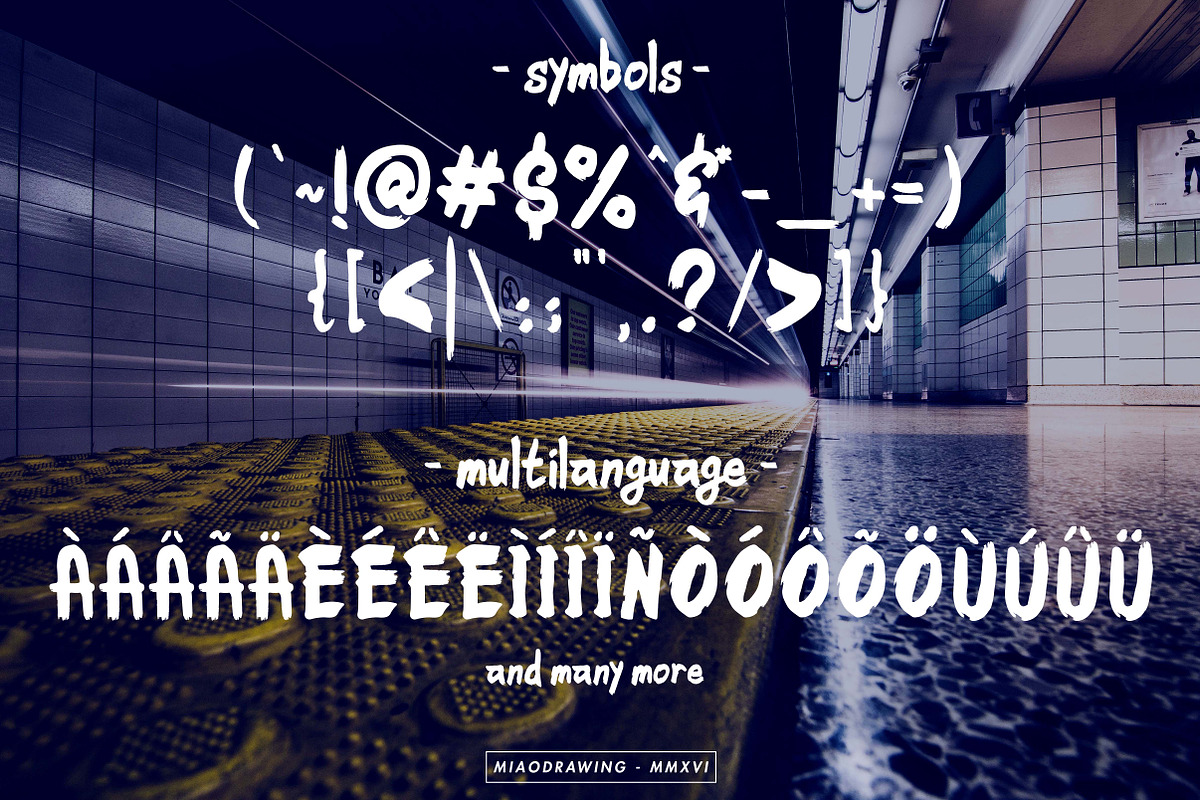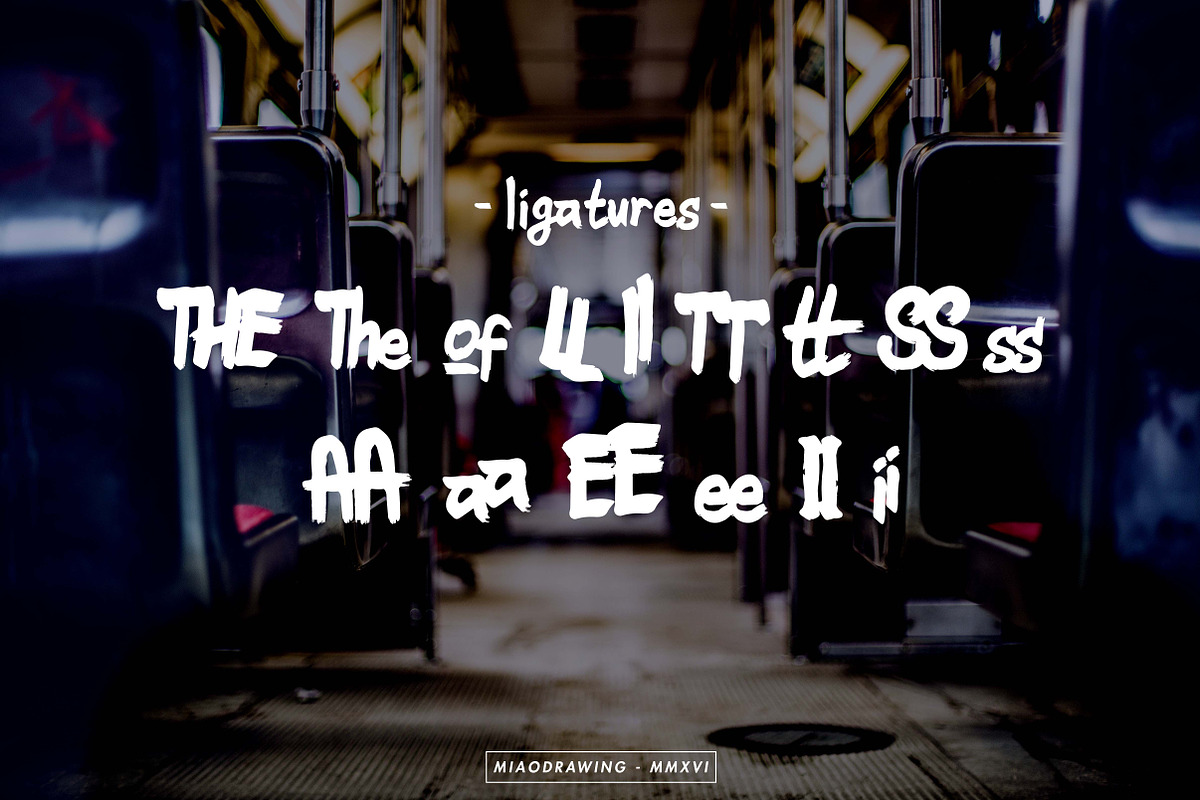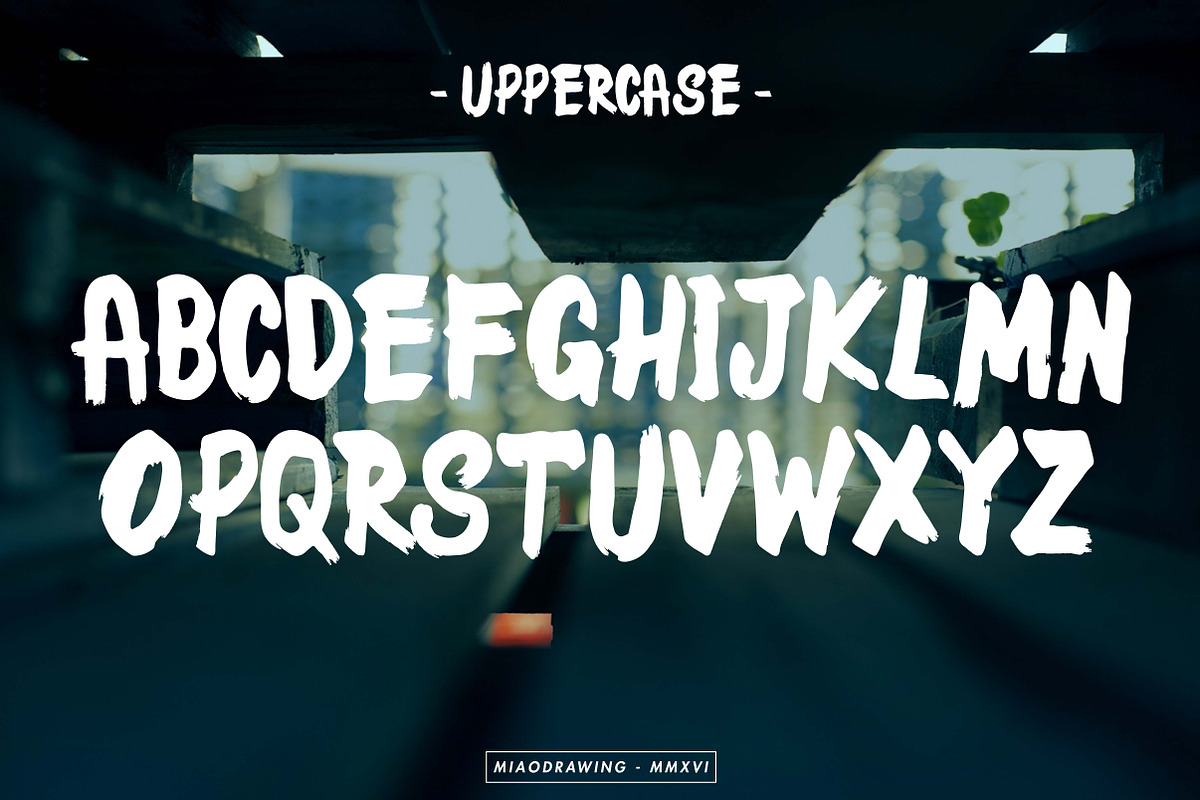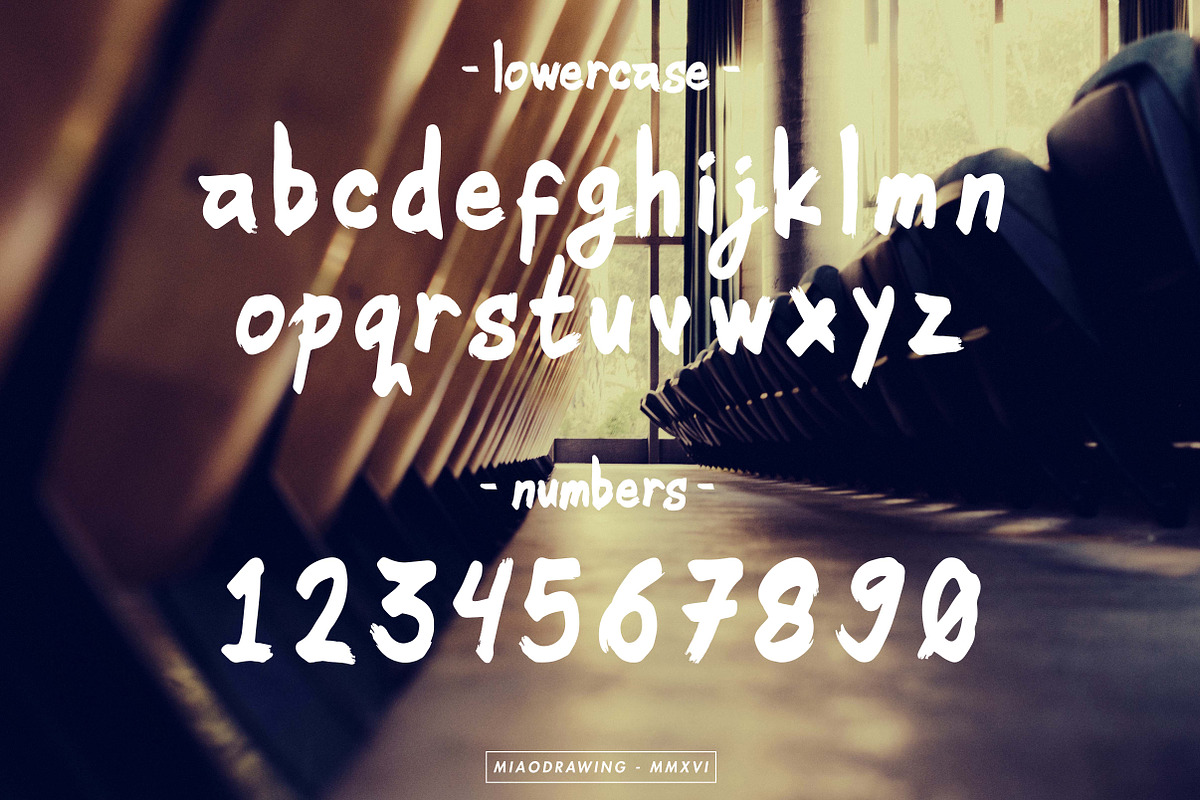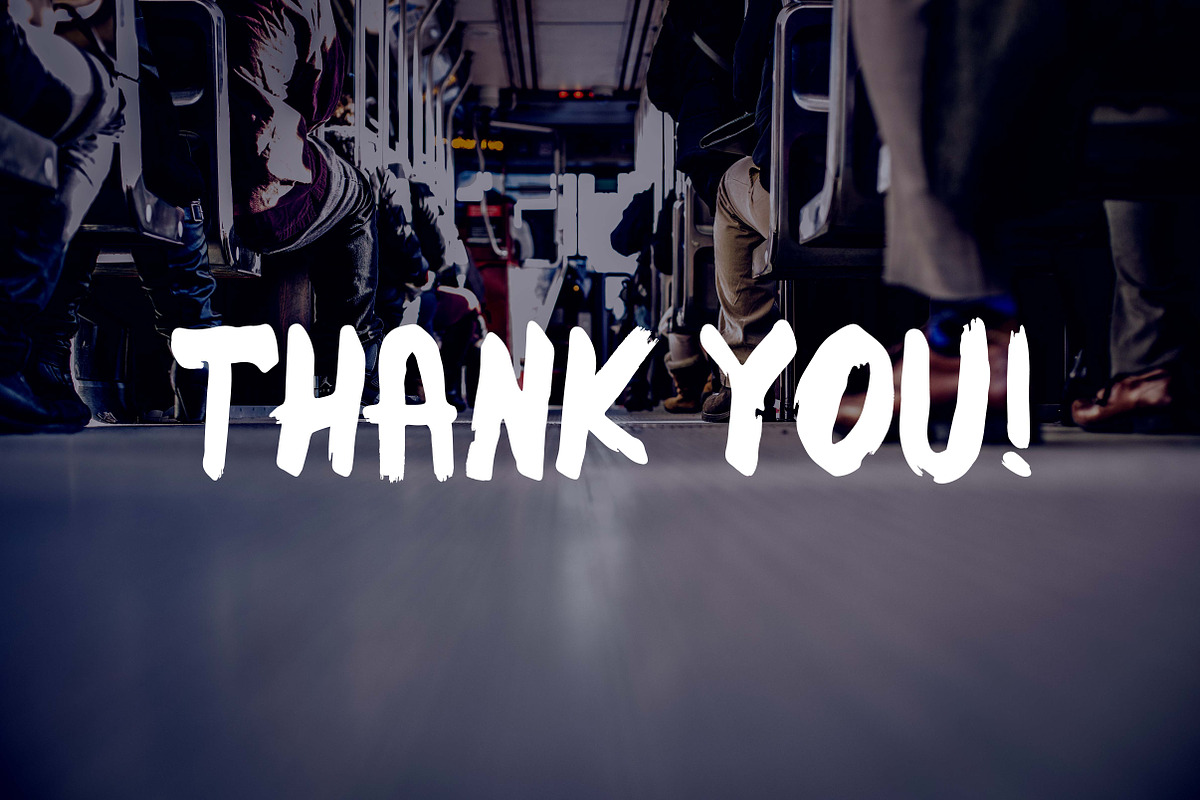
LaSpacino Typeface
LaSpacino Typeface by Gumico Studio. is a font selected for branding, posters, packaging, typography.
- LaSpacino Features Uppercase Lowercase Numerals & Punctuations Accents (Multilingual Characters) Opentype Features Ligatures To access the a
LaSpacino Typeface by Gumico Studio. fits naturally into Branding, posters, packaging, typography.